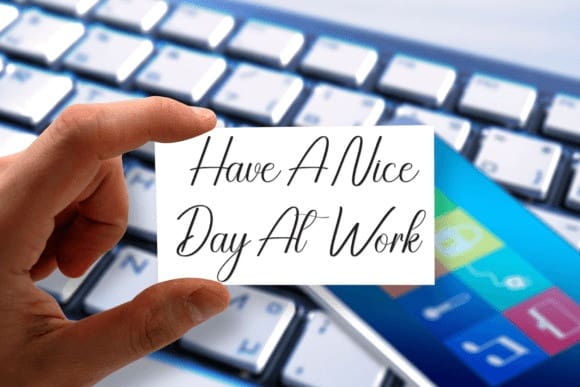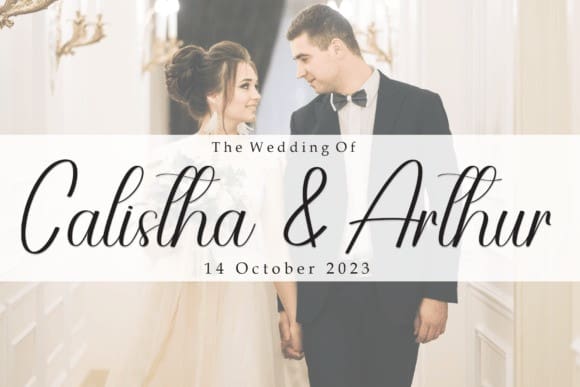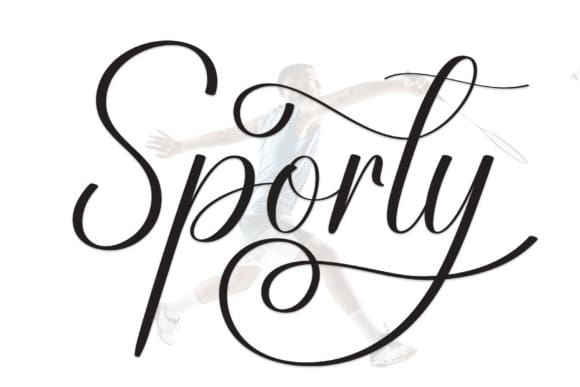
Sporty Script Font
Sporty Script Font is a sweet and elegant handwritten font. Modern and fun, this font is ideal for writing wedding invitations, cards, or any other design that might need a fun touch!